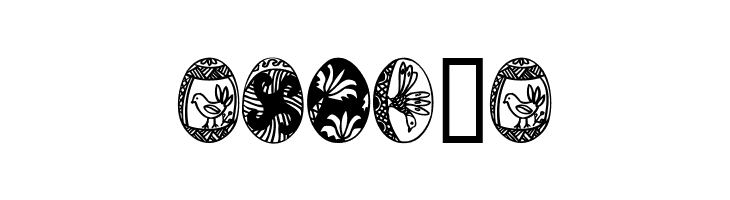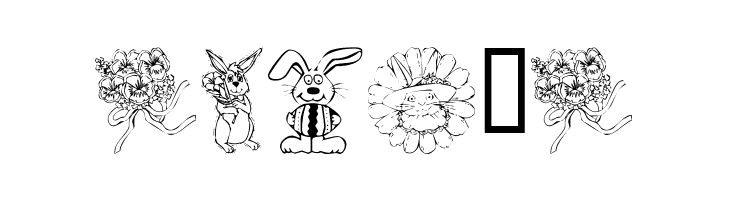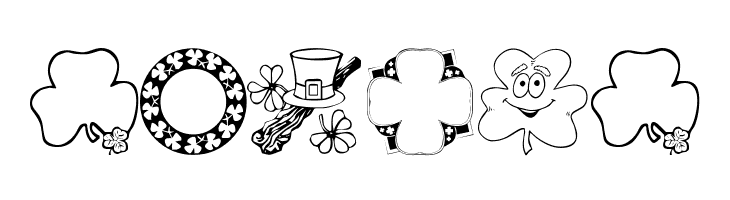
A whimsical, decorative font with curly accents and a playful style.
A playful, snowflake-adorned font perfect for festive and cheerful designs.
A playful, festive font with Christmas-themed decorations on each character.
A bold, blocky font with a modern aesthetic, perfect for impactful headlines.
A bold, impactful font with thick, uniform strokes ideal for strong visual statements.
A bold, modern font with strong, uniform characters ideal for headlines.
A festive font with uppercase candle letters and lowercase balloon letters, perfect for celebrations.
A playful, festive handwritten script with bold, rounded characters.
A bold, snow-capped decorative font perfect for festive designs.
A festive, bold font with decorative holiday elements and a playful style.
A bold, hand-painted style font with a textured, dynamic appearance.
A playful, festive font with bold, rounded characters ideal for holiday themes.
A playful, outlined font with a shadow effect, perfect for festive designs.
A bold, hand-drawn font with playful, decorative patterns.
A playful, rabbit-themed decorative font with bold, hand-drawn characters.
A bold, jagged font with a Halloween-inspired, carved pumpkin look.
A playful, whimsical font with tall, narrow letters and consistent stroke width.
A bold, heavy font ideal for impactful headlines and titles.
A festive, bold font with snow and Santa hat accents, perfect for holiday themes.
Ornate decorative elements and flourishes in a hand-drawn style.
A playful, festive font with bold, exaggerated strokes and a shadow effect.
A bold, vintage collegiate font with strong slab serifs and a classic varsity style.
A playful font with characters inside heart-shaped balloons, ideal for festive and romantic themes.
A bold, geometric, and modern uppercase font with high contrast.
A bold, playful font with a festive and whimsical design.
A festive, flowing script font perfect for holiday-themed designs.
A playful and whimsical script font with flowing, curvaceous letterforms.
Bold, condensed font with high contrast and tight spacing.
A playful, ornament-themed font with bold, rounded characters enclosed in circular shapes.
A festive, ornamental font with uppercase letters in decorative baubles.
A playful, pumpkin-themed font with a hand-drawn, festive style.
A playful font with characters inside balloons, perfect for festive occasions.
A festive font with letters held by cartoon Santa figures, perfect for holiday themes.
A festive, decorative font styled like Christmas light bulbs, perfect for holiday-themed projects.
A bold, impactful font with thick, uniform strokes for a strong presence.